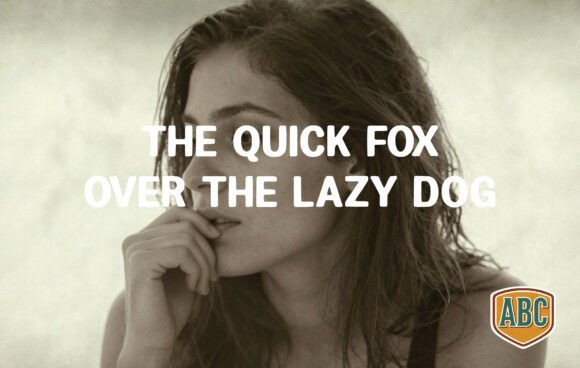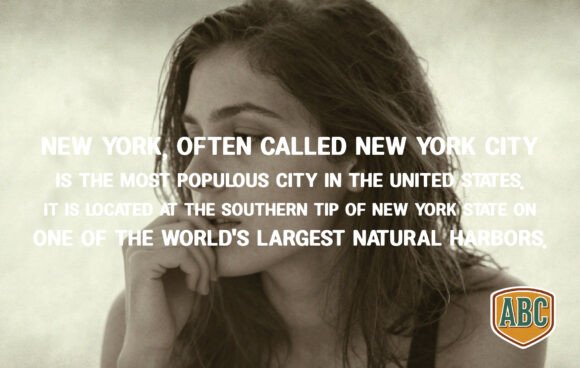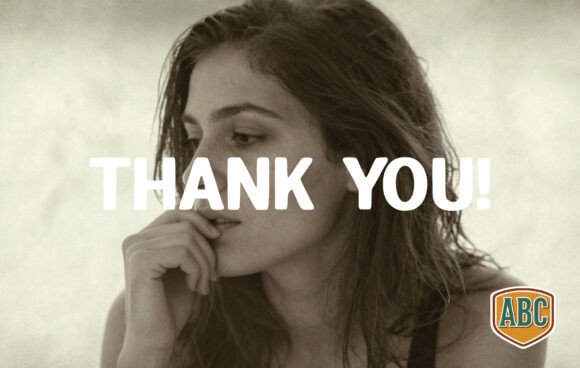
Discover the Harmony: A Friendly and Versatile Monolinear Sans-Serif Font
In the world of typography, finding the perfect font that balances modernity with approachability can be a daunting task. However, the Harmonie font has emerged as a game-changer, offering a clean, contemporary, and incredibly friendly monolinear sans-serif that carries a subtle “hand-drawn” warmth. Designed with maximum legibility and friendliness in mind, Harmonie has become the go-to choice for designers seeking a reliable and versatile typographic solution.
The Design Philosophy Behind Harmonie
The Harmonie typeface is built on a foundation of rounded ends and a consistent stroke weight, which gives it a modern and balanced feel. This thoughtful design approach ensures that Harmonie works seamlessly across various mediums, from digital platforms to print materials, without ever feeling cold or robotic. The font’s neutral yet friendly personality makes it an excellent companion to more complex display fonts or busy photographic backgrounds, allowing designers to create visually stunning and harmonious compositions.
Ideal Applications for Harmonie Font
Harmonie’s unique blend of modernity and approachability makes it an ideal choice for a wide range of applications. Some of the most notable uses for this versatile font include:
- Wellness Branding: Harmonie’s friendly and approachable nature makes it perfect for wellness brands seeking to establish a strong connection with their audience.
- Educational Apps: The font’s clean and legible design ensures that educational content is presented in a clear and concise manner, making it an excellent choice for educational apps.
- Clean Lifestyle Packaging: Harmonie’s modern and balanced feel makes it an excellent fit for clean lifestyle packaging, allowing brands to communicate their values and message effectively.
Why Designers Love Harmonie Font
Designers appreciate Harmonie font for its reliability and versatility. As an “all-rounder” font, Harmonie can be used in a variety of contexts, from headlines to body copy, without ever feeling out of place. Its human and honest feel makes it an excellent choice for designers seeking to create authentic and engaging visual experiences.
Pairing Harmonie with Other Fonts
One of the key benefits of Harmonie font is its ability to pair seamlessly with other fonts. Its neutral personality makes it an excellent companion to more complex display fonts or busy photographic backgrounds. Designers can use Harmonie as a supporting font to add clarity and legibility to their compositions, while using more decorative fonts to add visual interest and personality.
Tips for Using Harmonie Font Effectively
To get the most out of Harmonie font, designers should consider the following tips:
- Use Harmonie as a supporting font: Pair Harmonie with more decorative fonts to add clarity and legibility to your compositions.
- Experiment with font sizes: Harmonie’s legible design makes it suitable for use at a range of font sizes, from headlines to body copy.
- Take advantage of Harmonie’s versatility: Use Harmonie across a range of mediums, from digital platforms to print materials, to create a consistent visual brand.
In conclusion, Harmonie font is a game-changing typographic solution that offers a unique blend of modernity and approachability. Its clean, contemporary, and incredibly friendly design makes it an excellent choice for designers seeking a reliable and versatile font. Whether used for wellness branding, educational apps, or clean lifestyle packaging, Harmonie font is sure to become a staple in any designer’s toolkit.